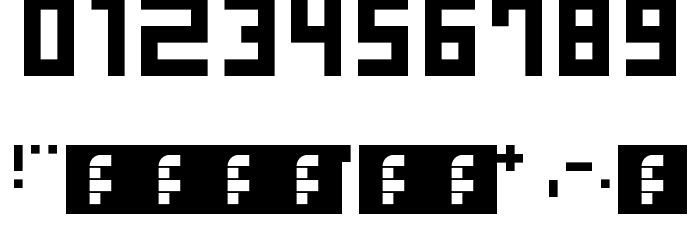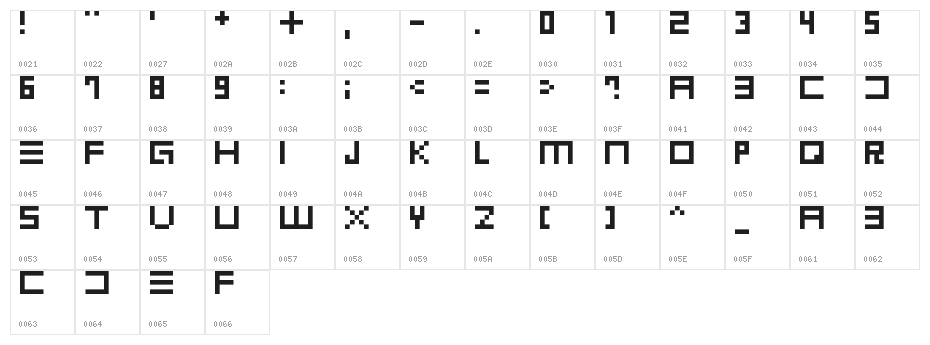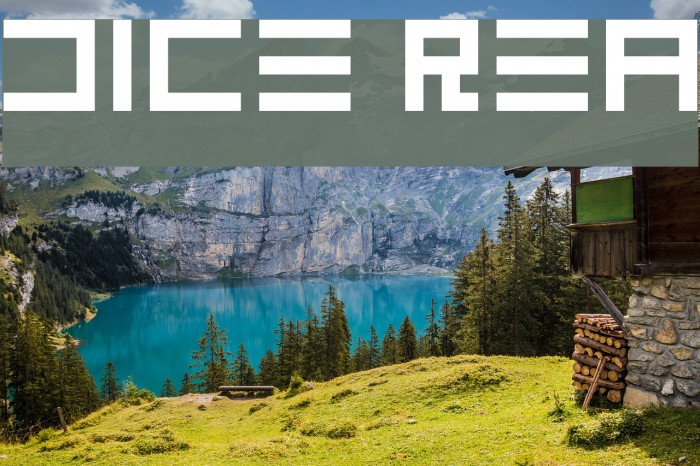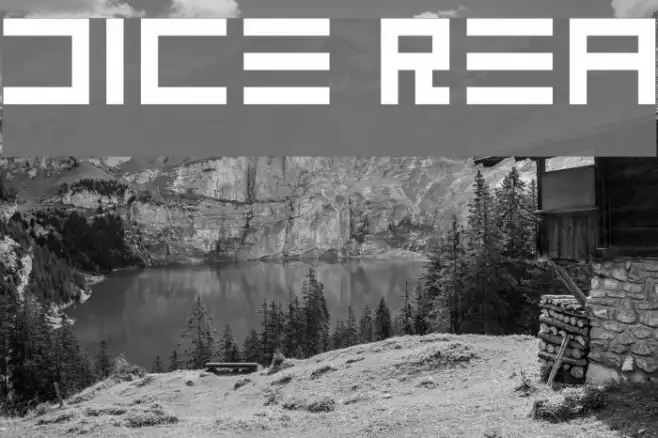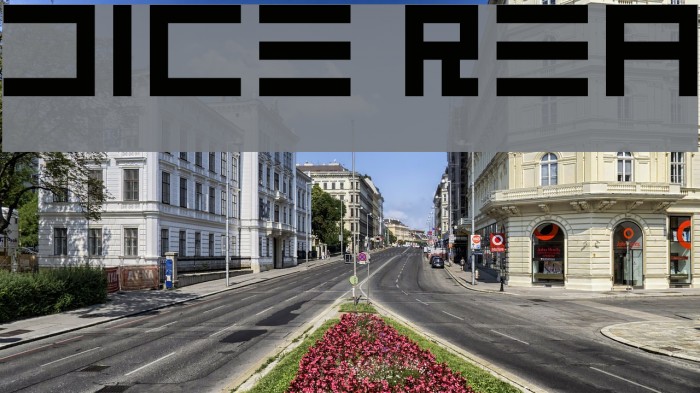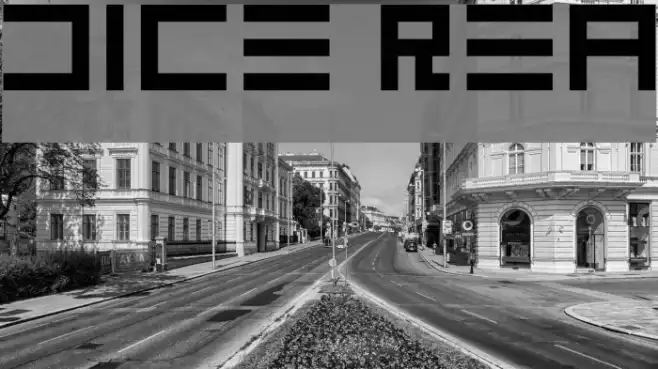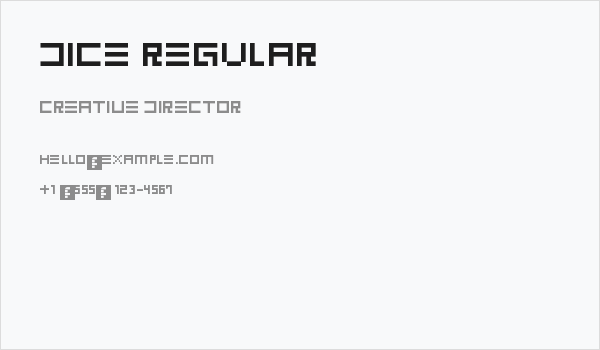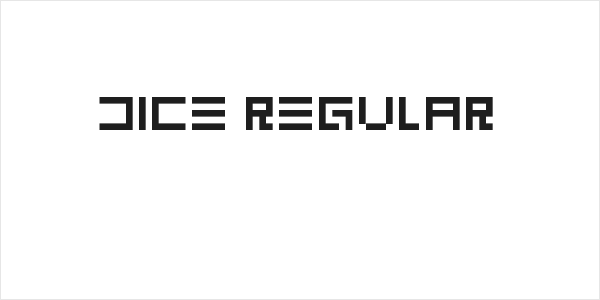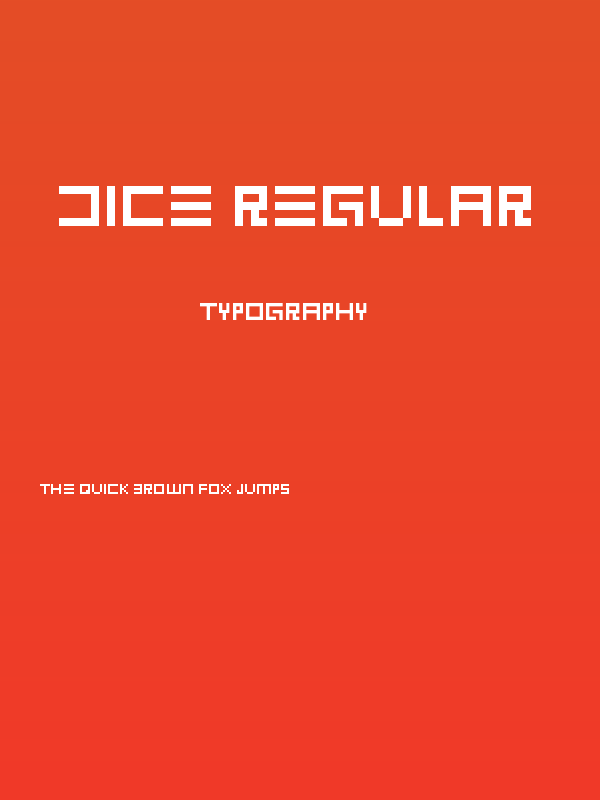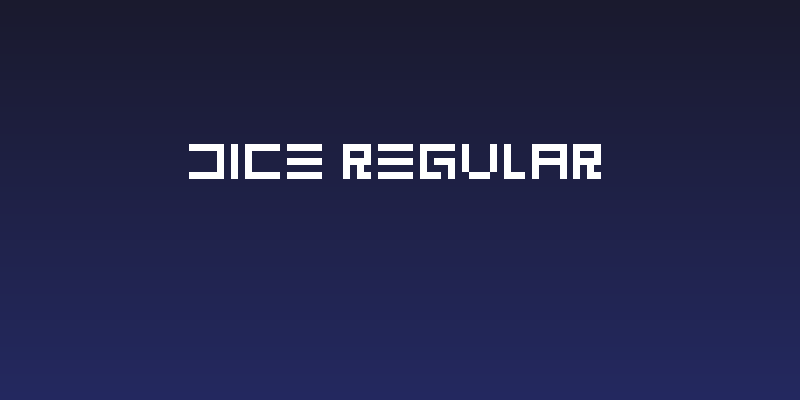
DICE Regular Font
This font features a bold, geometric design with a distinctly digital aesthetic. The characters are constructed with sharp, angular lines and a blocky appearance, reminiscent of early digital displays or pixel art. Each letter and number is uniform in height, creating a cohesive and structured look. The font maintains a consistent weight throughout, emphasizing its boldness and making it highly legible even at smaller sizes. The spacing between characters is tight, contributing to its compact and efficient style. This font is ideal for projects that require a modern, tech-inspired look.
| Proposed Projects | Ideal for tech-related branding, digital art, video game design, and futuristic-themed projects. |